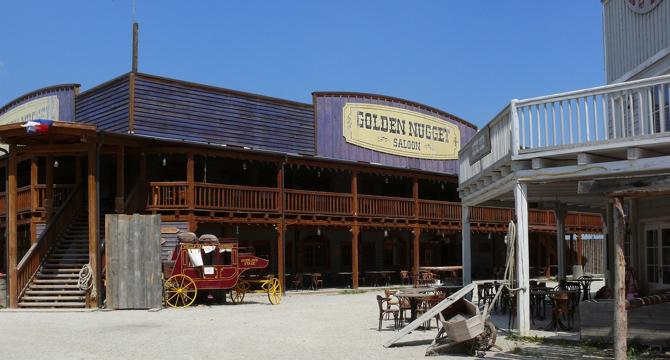
<ul data-eligibleForWebStory="true">Wild west fonts capture the spirit of the American frontier in designs.Curated fonts evoke vintage saloon posters, western movie titles, and ranch branding.Various styles blend classic American typography with modern design for authenticity.Fonts like Rio Grande, Carnevalee Freakshow, Winslet, offer unique western aesthetics.These fonts suit traditional and contemporary applications, delivering frontier charm.